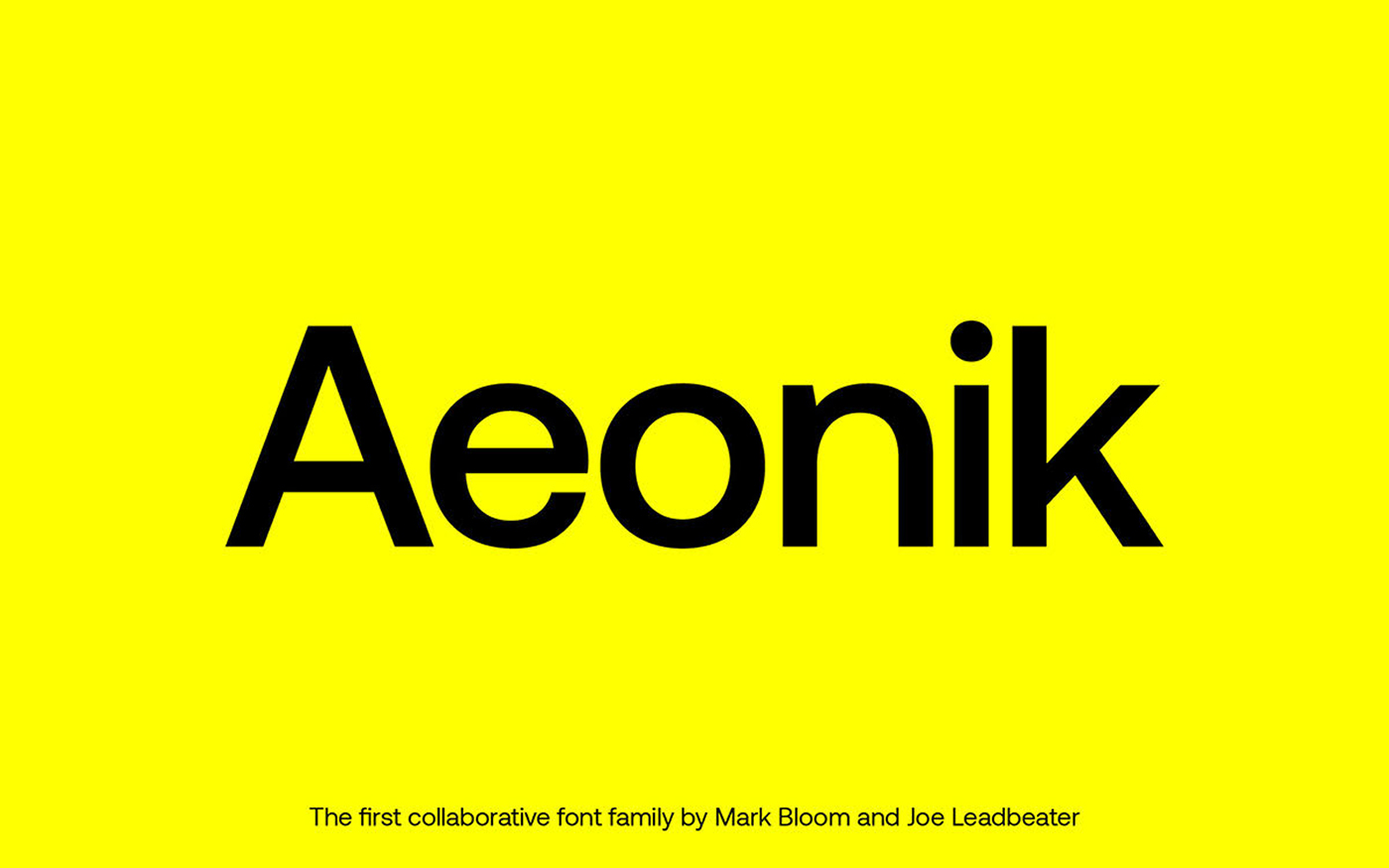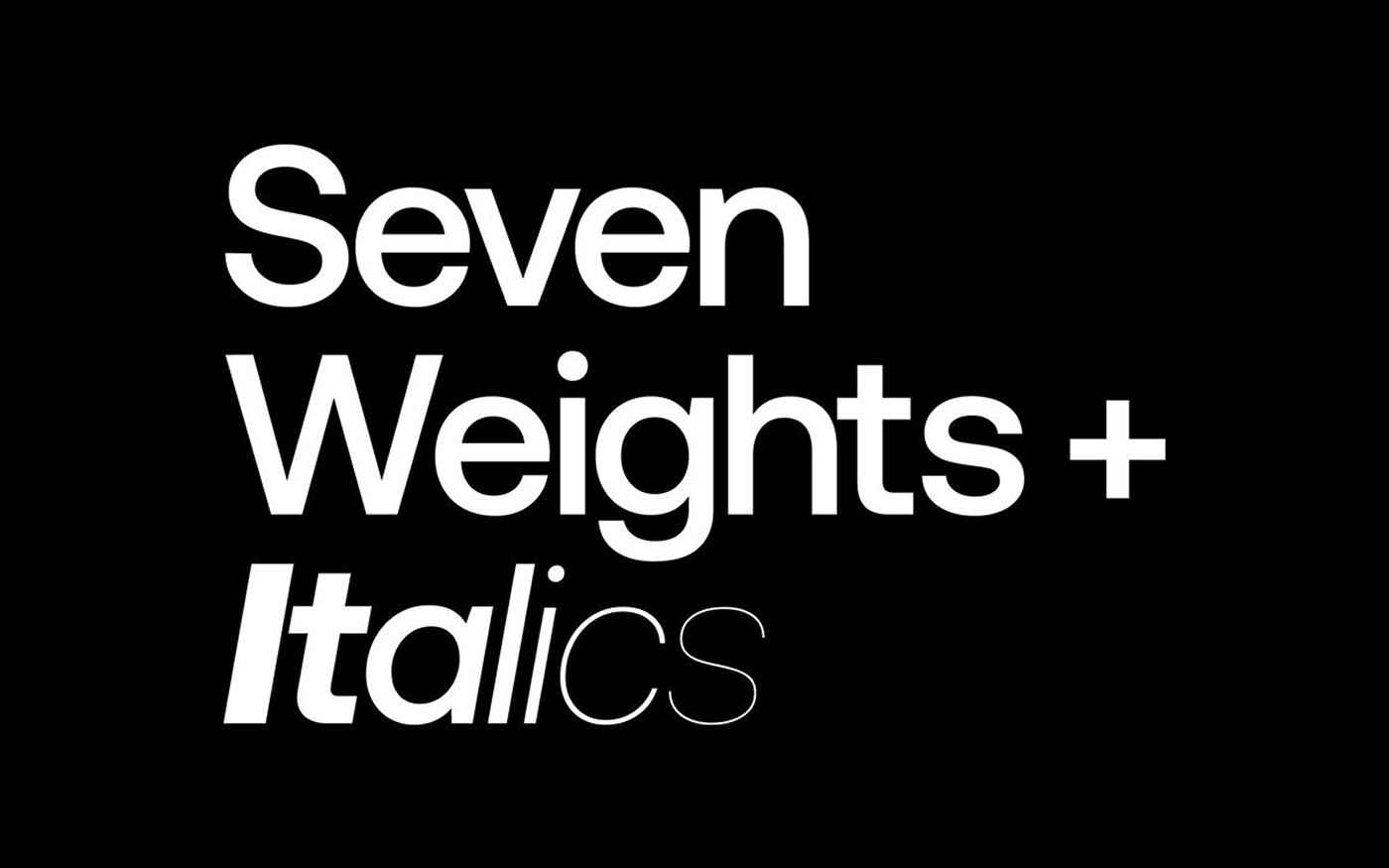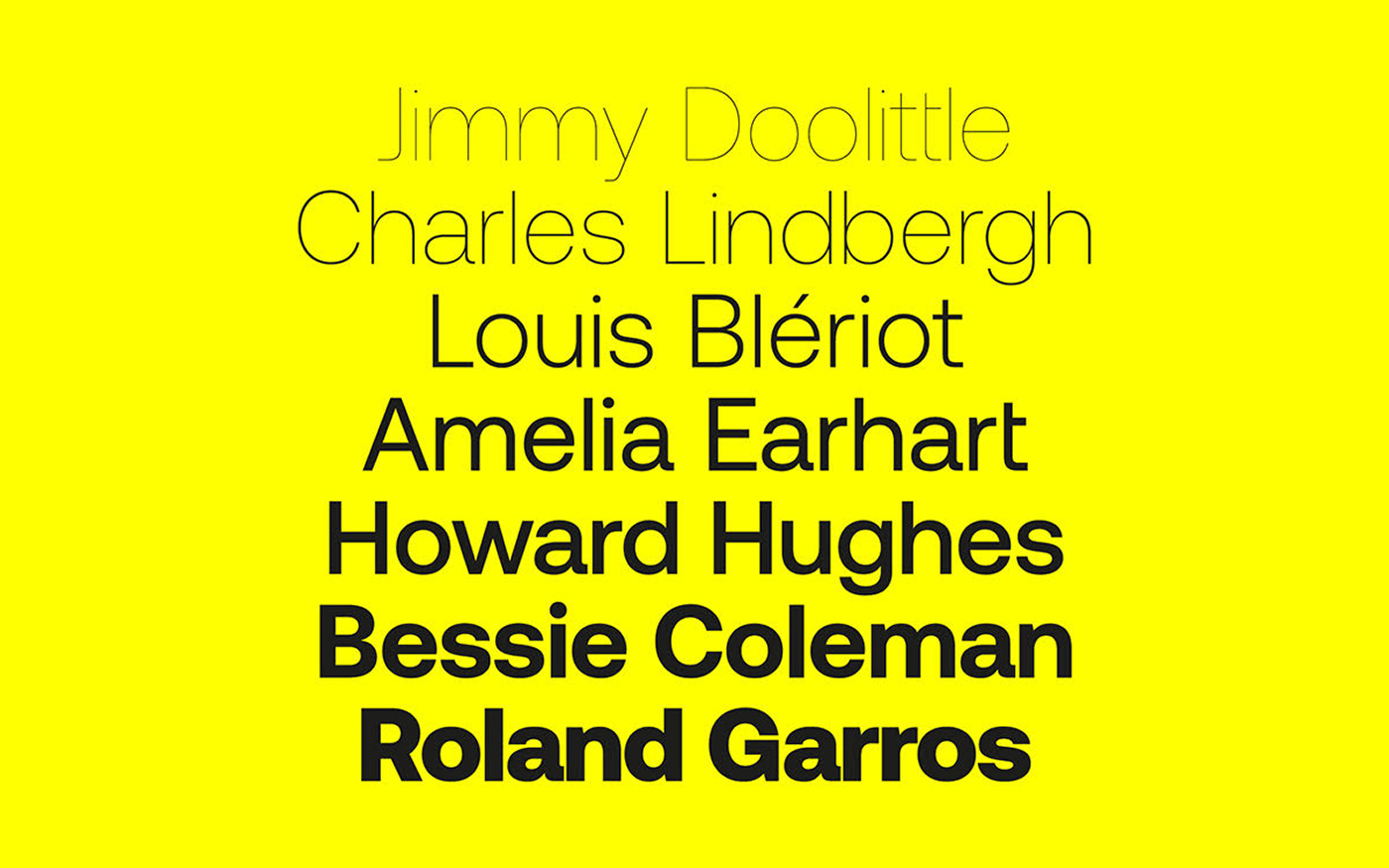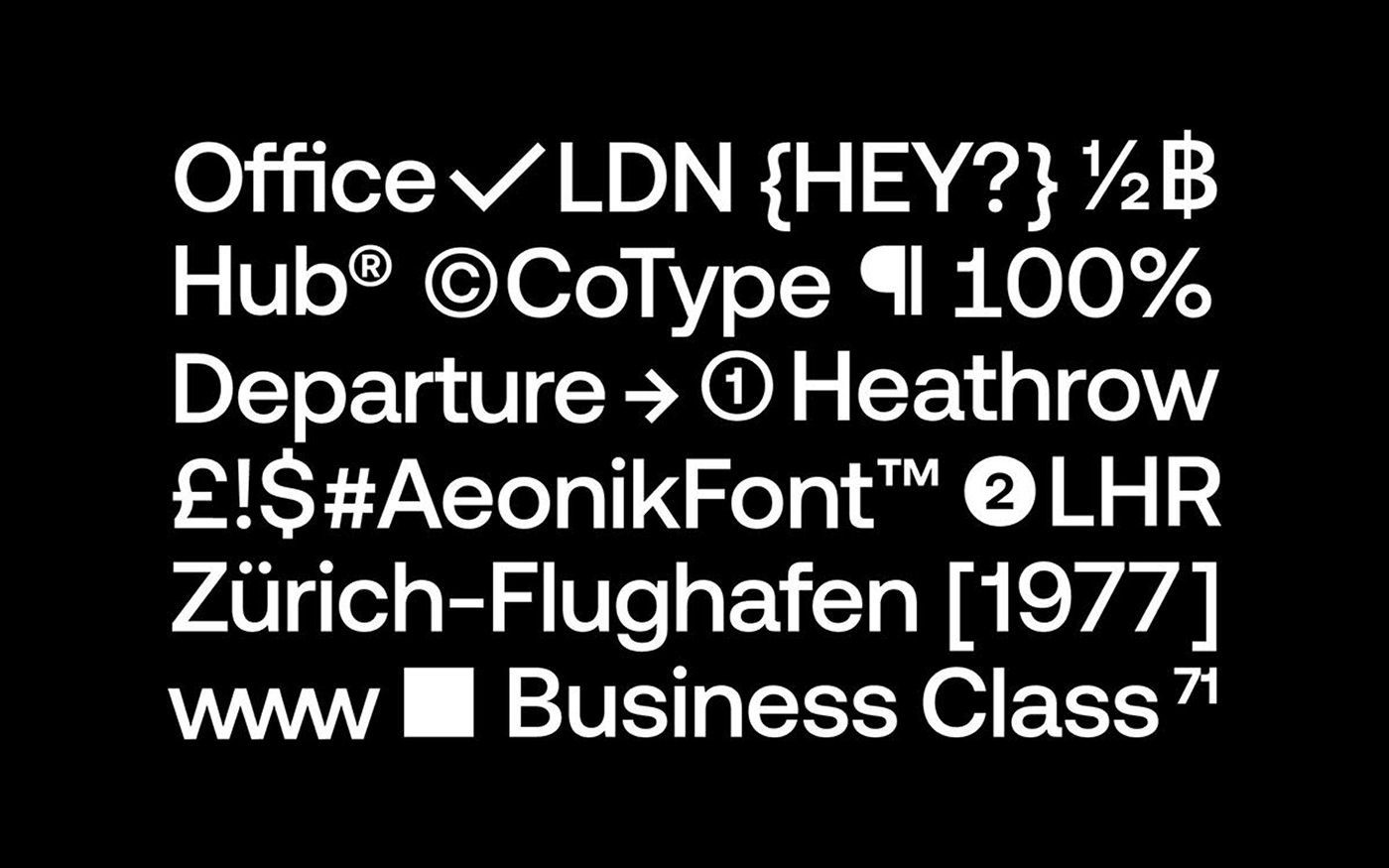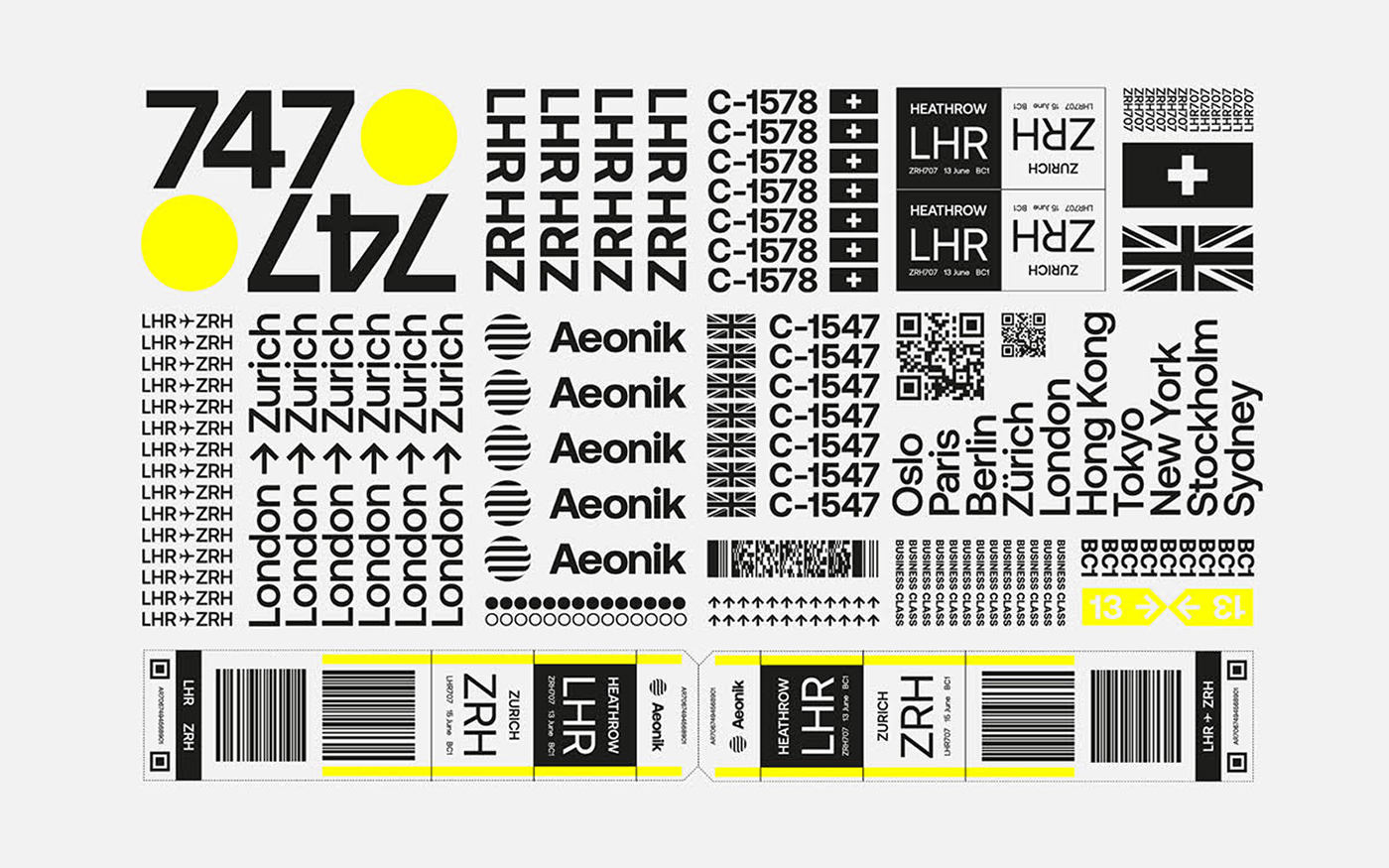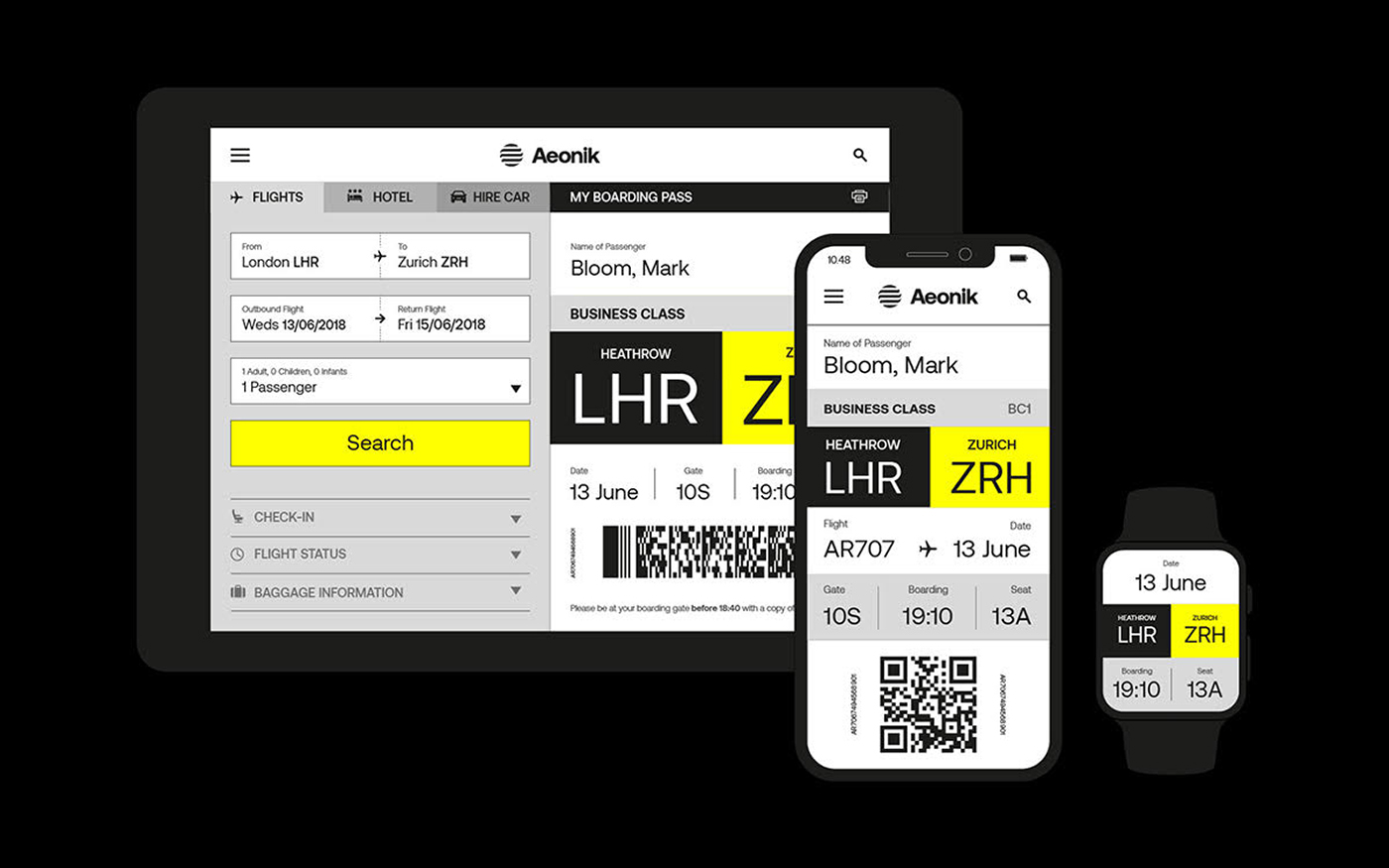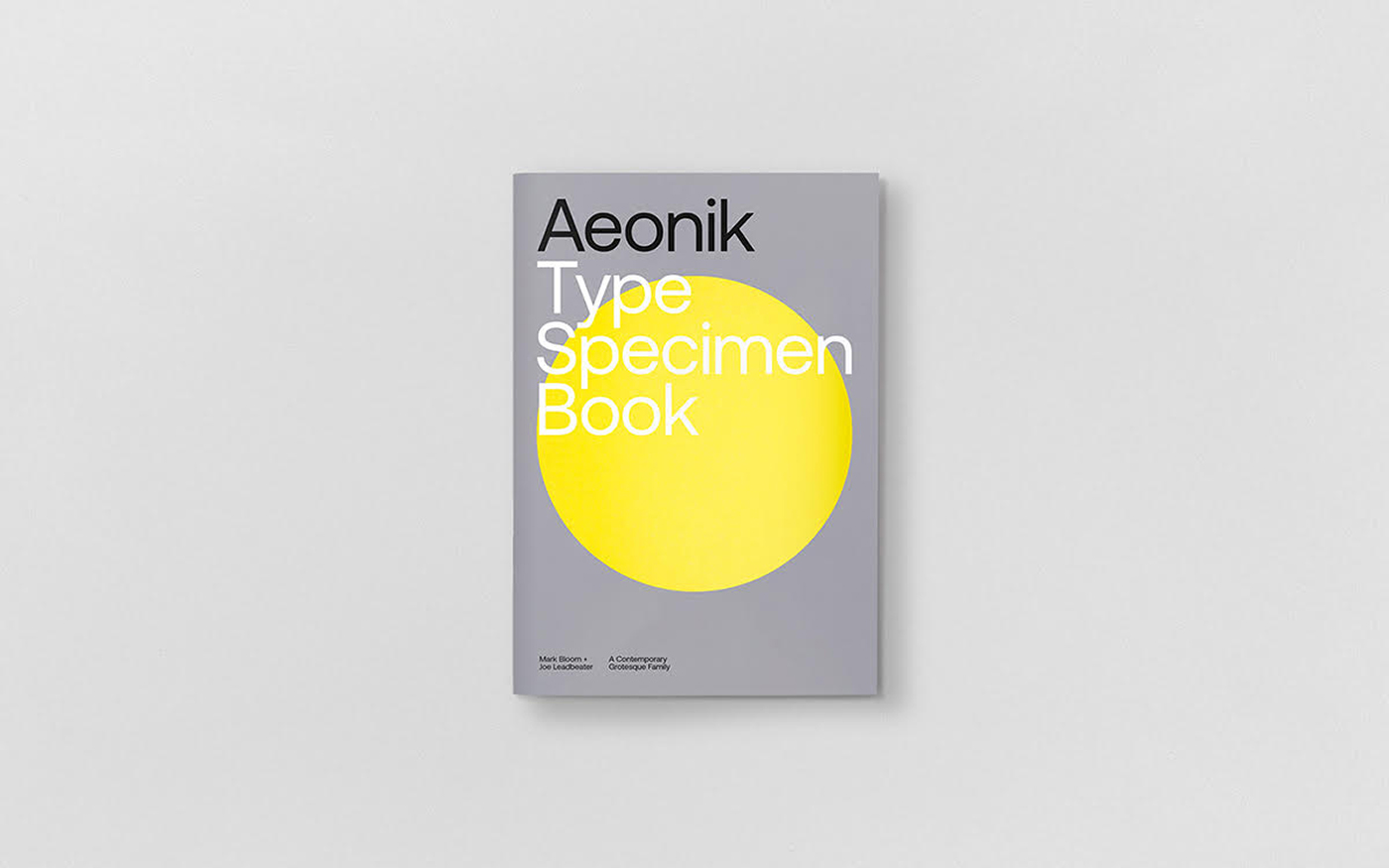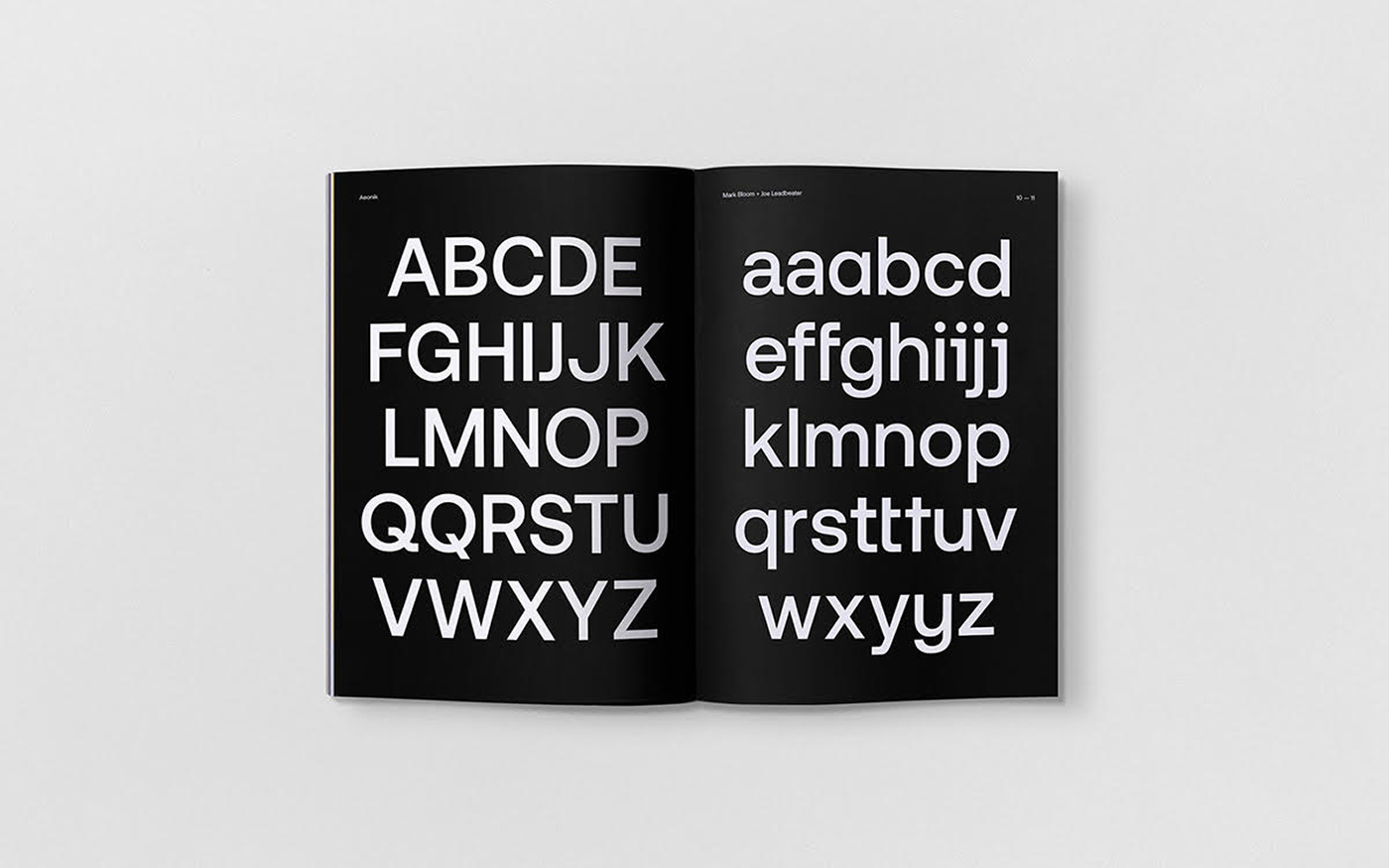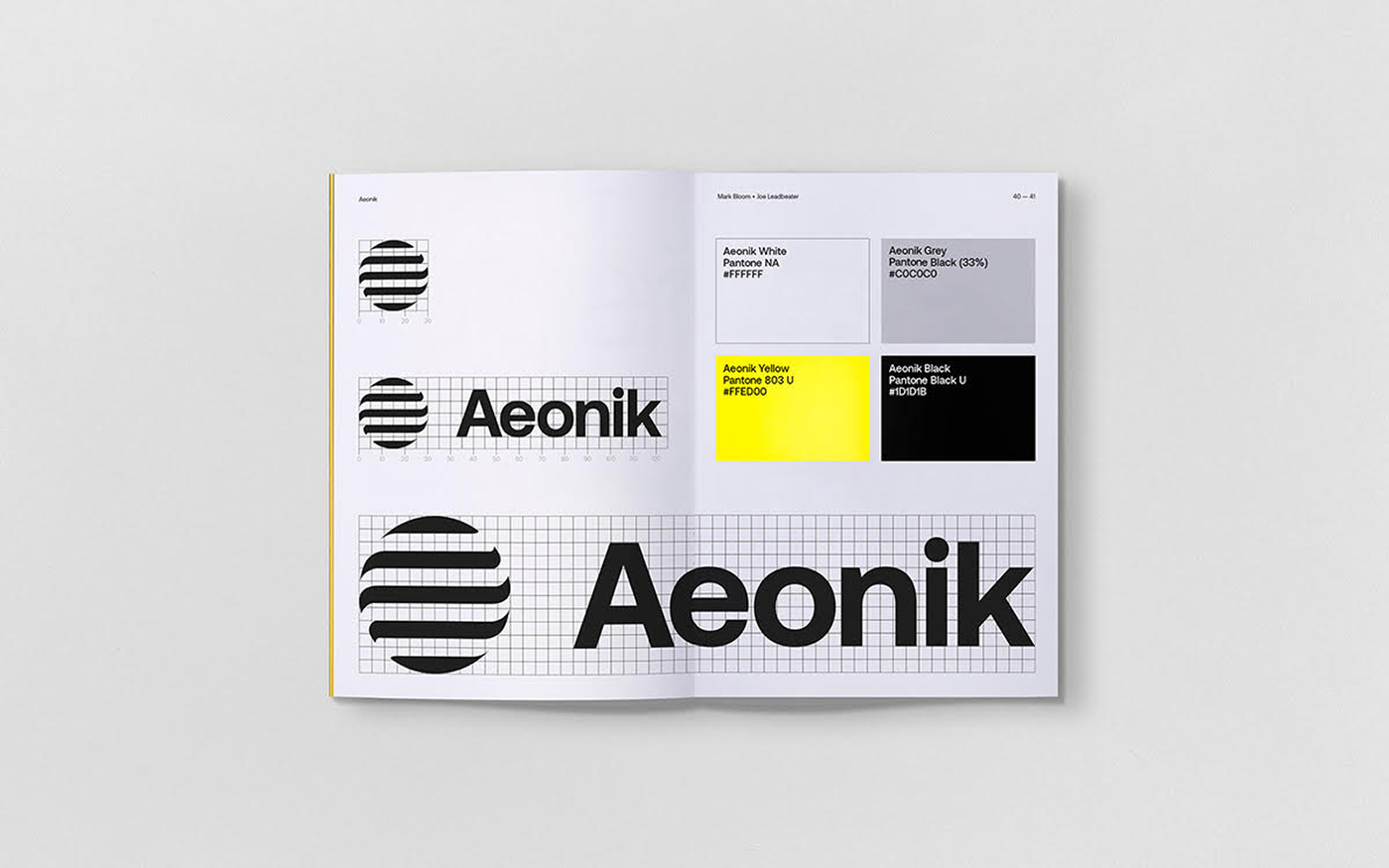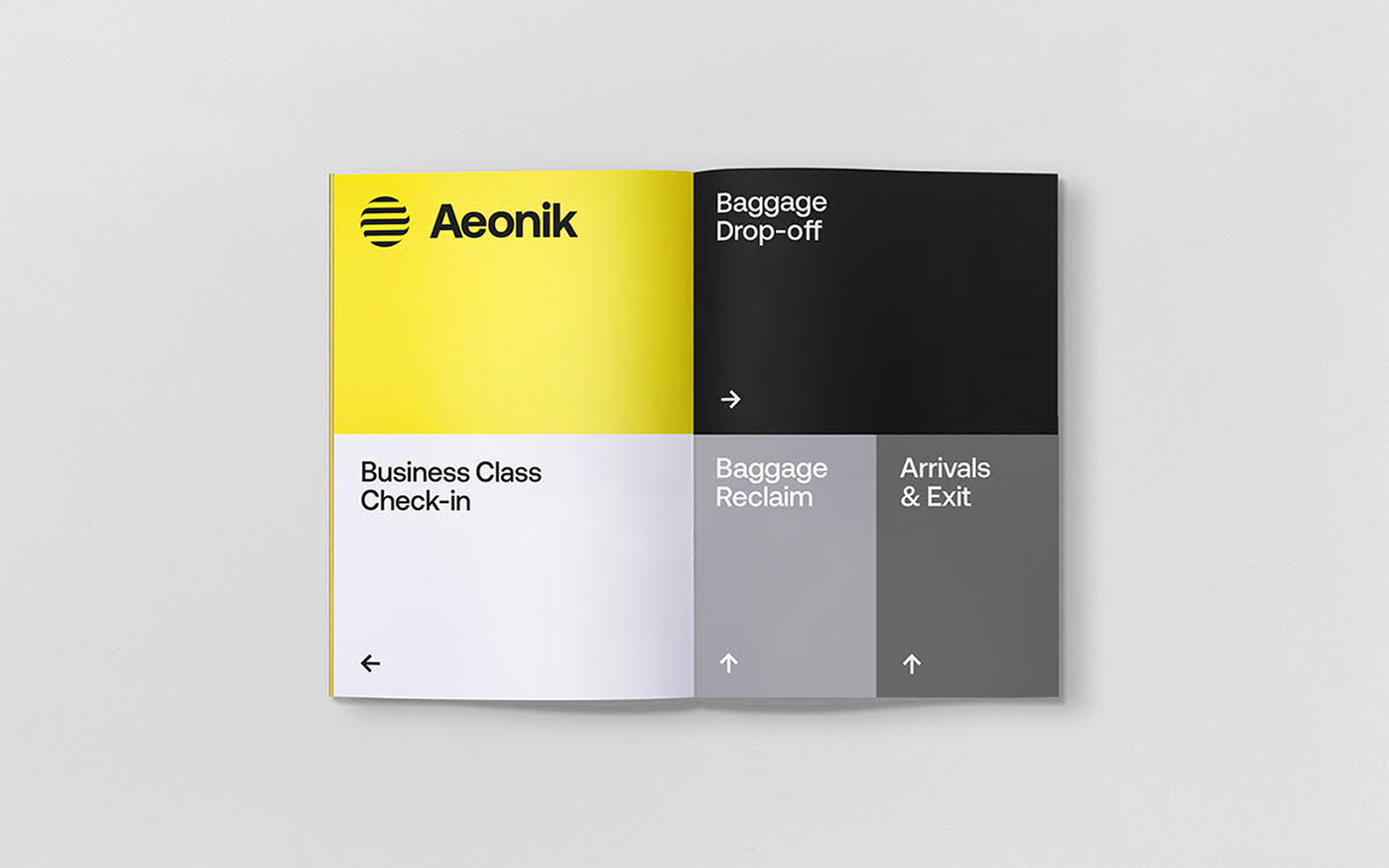
This is a beautiful typeface created by Mark Bloom from MashCreative and Joe Leadbeater in the UK. Available at www.aeonik.co.uk.
With Modernist roots but details referencing mechanical early Grotesks, Aeonik positions itself as a Neo-Grotesk with a Geometric skeleton; with proportions that are wider than a typical Grotesk, but thinner than a typical Geometric Sans. Structurally, this creates a fantastic balance for both display and text use.
Seven broad weights (based on the Pablo distribution) are provided with enough difference in weight to give appropriate hierarchy. Optical adjustments have been made to ensure each weight can sit next to each other.
Aeonik also offers vast character sets across each weight, with all Western European diacritics, Punctuation, Mathematic & Numerics. Opentype features allow multiple subsets, caps alternates, tabular and lining numerals, both proportional and old-style.
Although Italics appear oblique, curves and diagonals have been corrected to ensure weighting stays true to their upright counterparts. Slightly thinner stems allow the appropriate stress that italics provide within text.